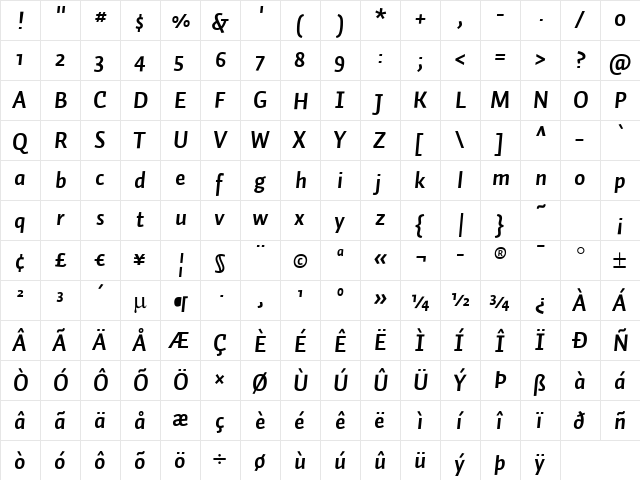
Auto 1 Bold Italic Font Preview
Auto 1 Bold Italic
Auto 1 Bold Italic Font Details
Design Context for Auto 1 Typeface
Auto 1 is a composed and adaptable typeface that performs quietly and consistently across a wide range of design contexts. The slanted form adds forward momentum and visual energy. The heavy weight commands attention and anchors typographic hierarchies.
Pro Tip: Try Auto 1 for annotation and caption copy alongside an upright companion — the contrast in angle creates a dynamic but ordered typographic system.